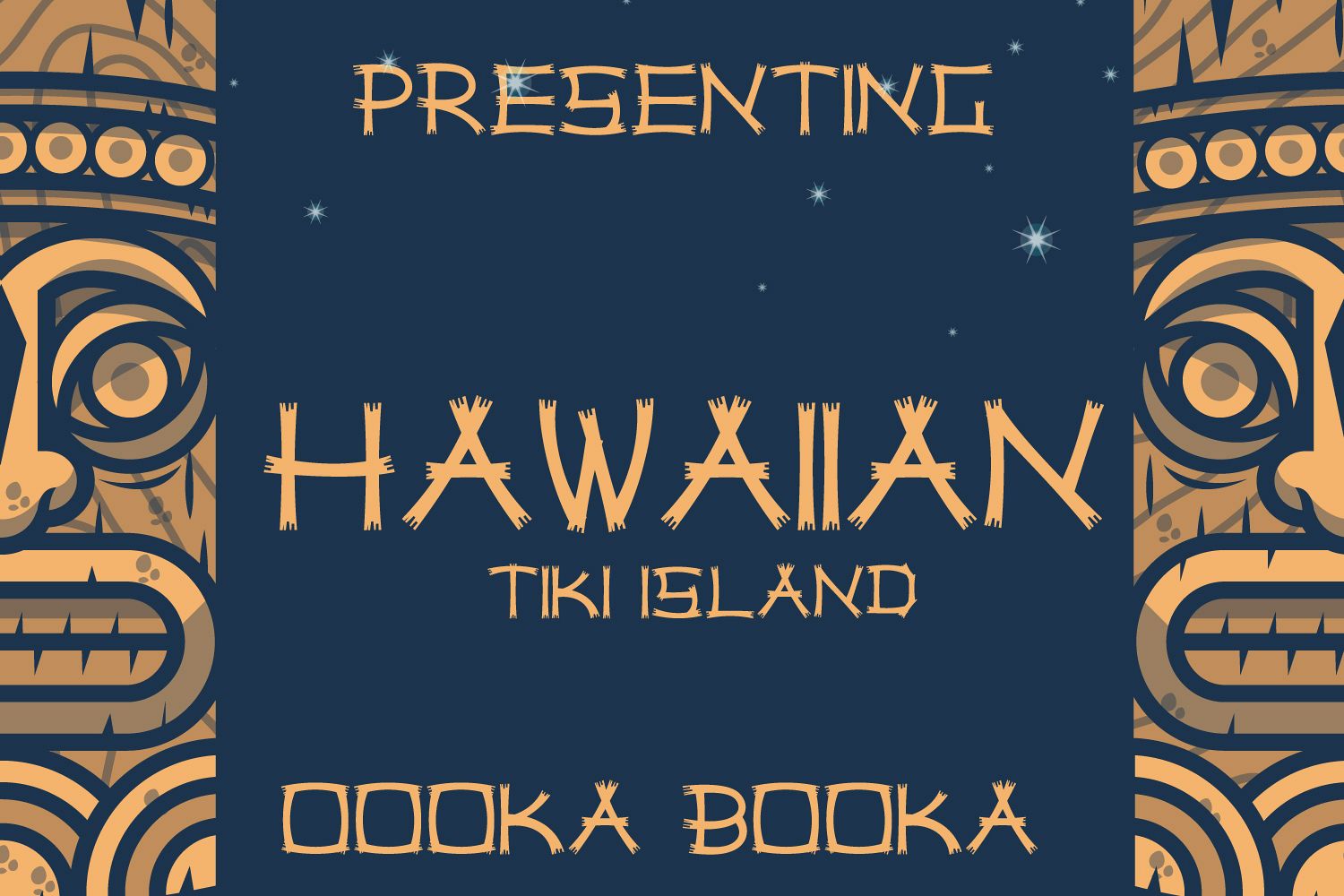
Hawaiian Tiki Island Font
Hawaiian designs are most famous these days and how can someone make designs related to it without proper font representing it? Well, I have a perfect font for you made recently. This is carefully crafted with the view of islands, jungle theme and more. It can be used in any project you are working on and will definitely looks great on designs related to fun projects and similar.
I really love to see this font on Hawaiian weddings cards, business cards, and local business. This font is all you need. You can create logos and tons of business project using it. A cutest font yet! with style and funny side. A combination of tropical and modern font.